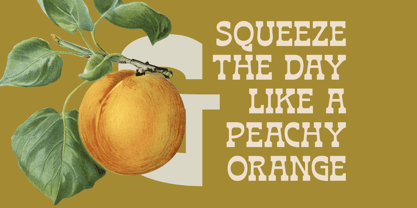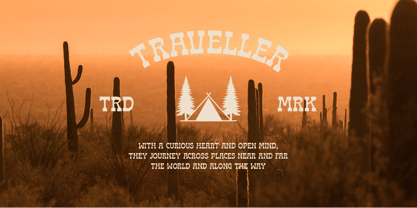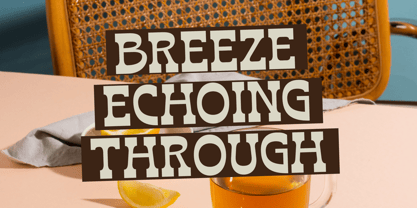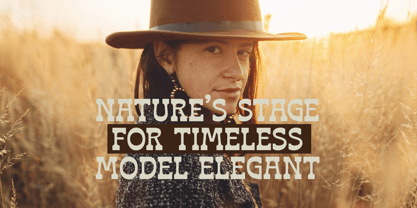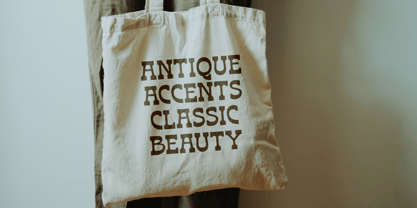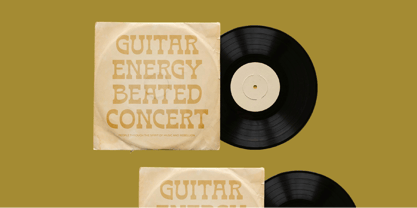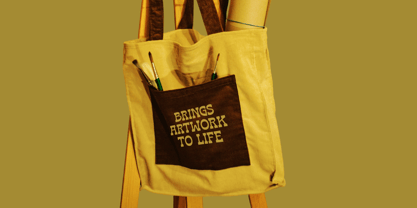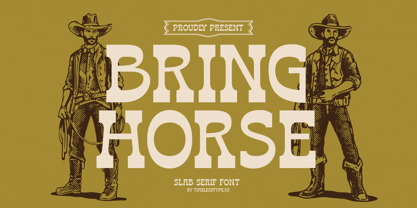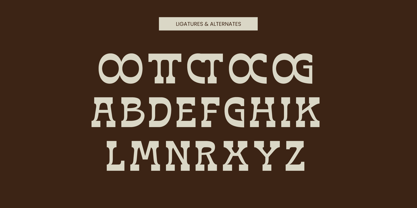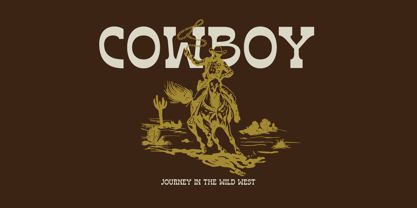
Bring Horse
by Timelesstype Studio
The Bring Horse Font Family was designed by Heru Utama Putra and published by Timelesstype Studio. Bring Horse contains 2 styles and family package options.
Bring Horse - Slab Serif Font , from Timelesstype , Suitable for any projects such as: logos, branding projects, homeware designs, product packaging, mugs, quotes, posters, shopping bags, t-shirts, book covers, name card, invitation cards, greeting cards, label, photography, watermark, special events, and all your other luxury and beautiful projects that need a Luxury Serif taste.